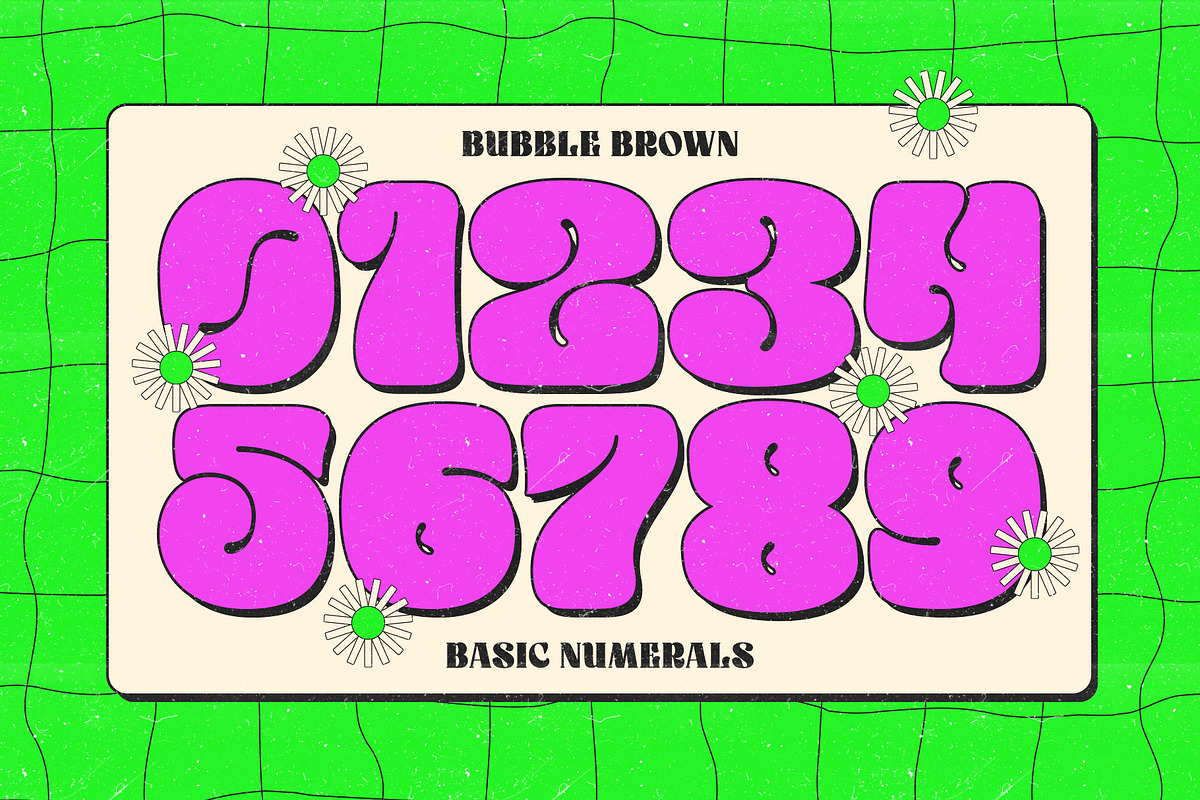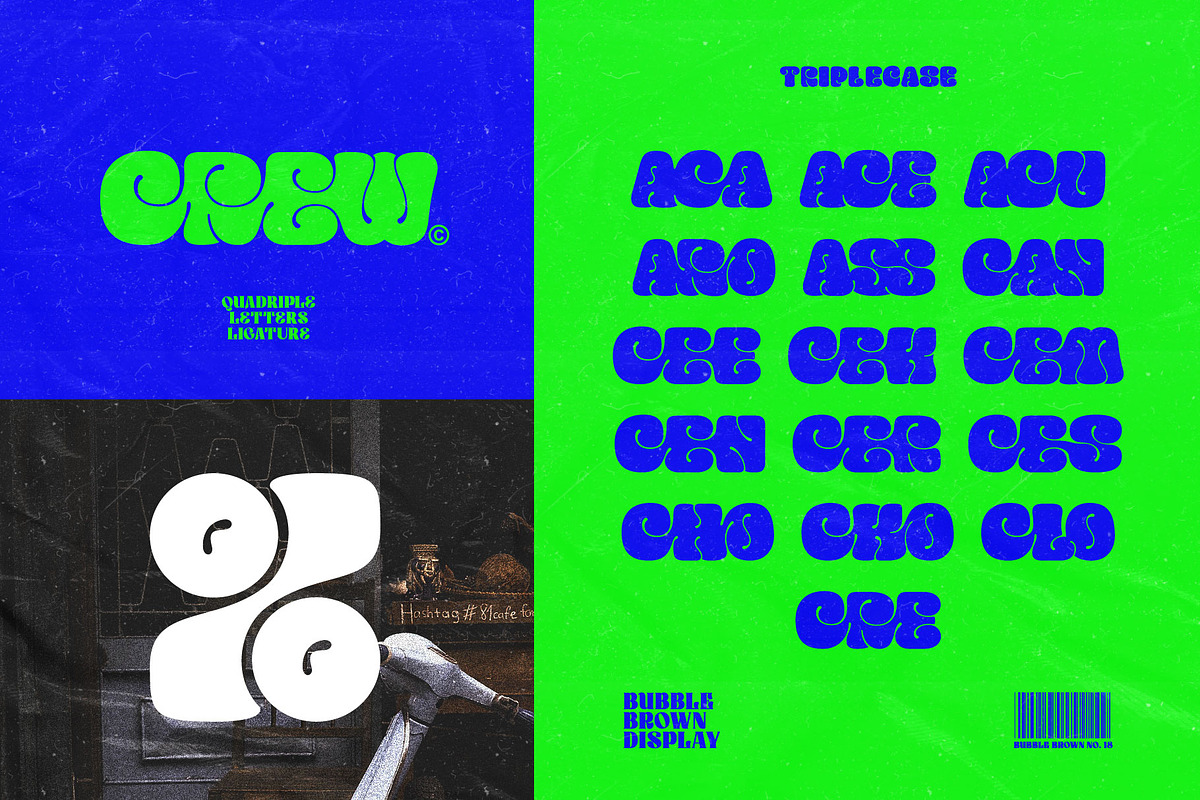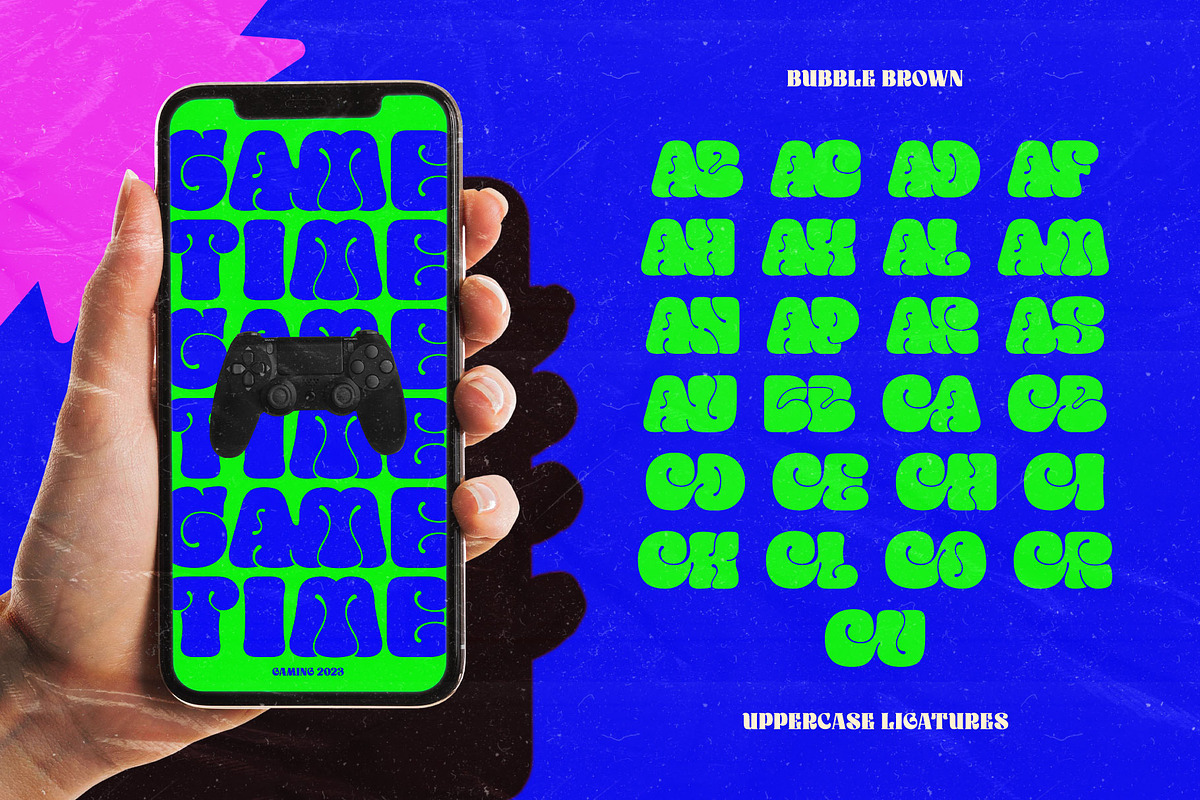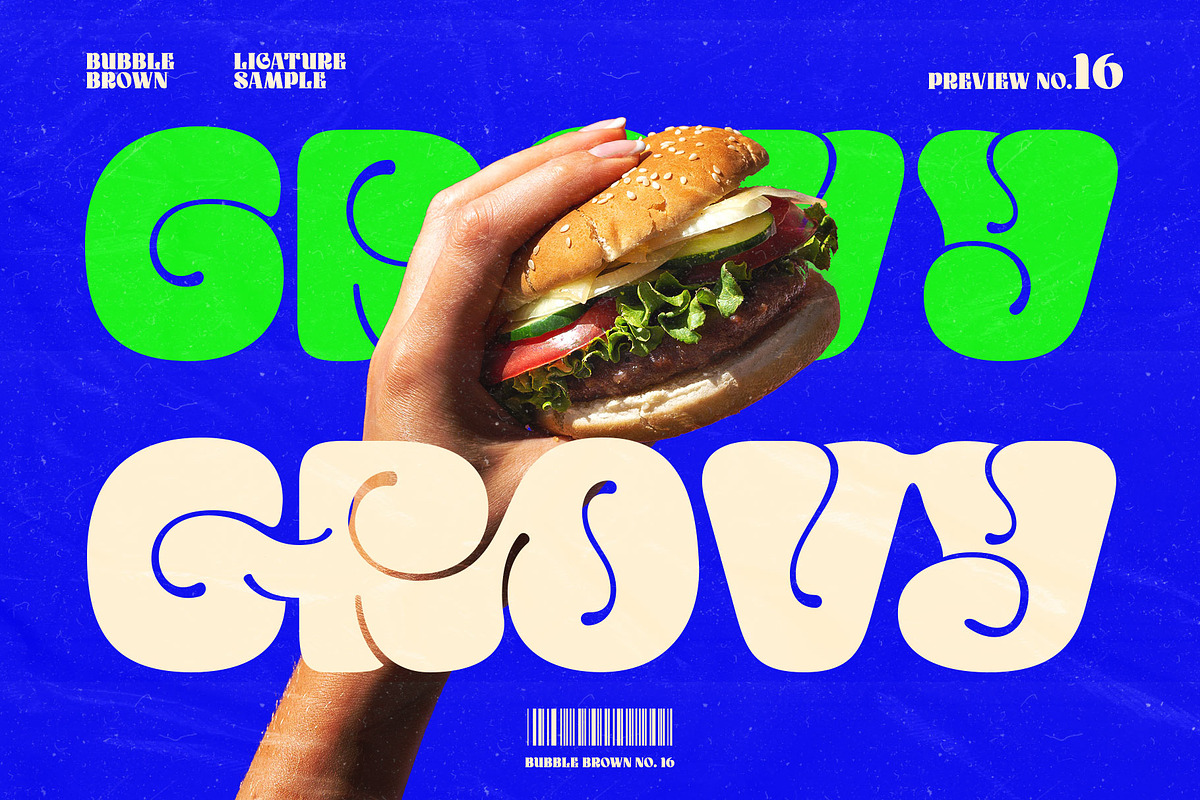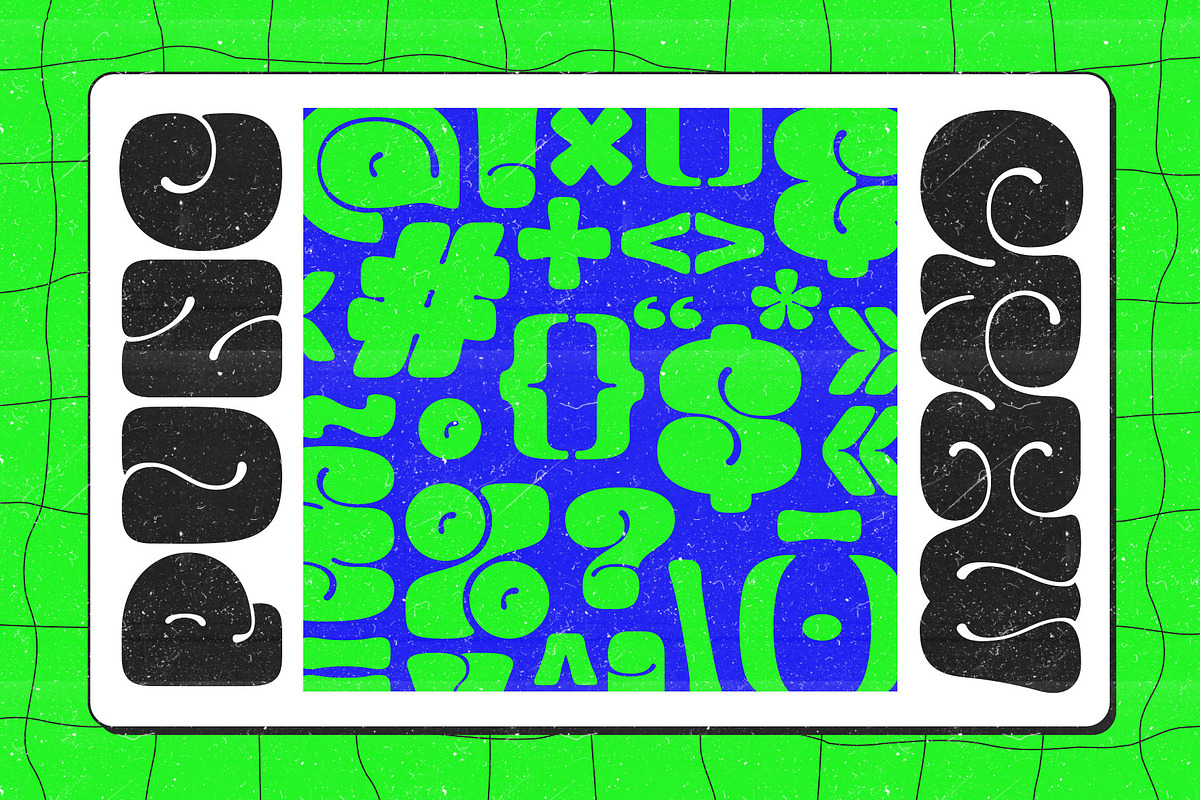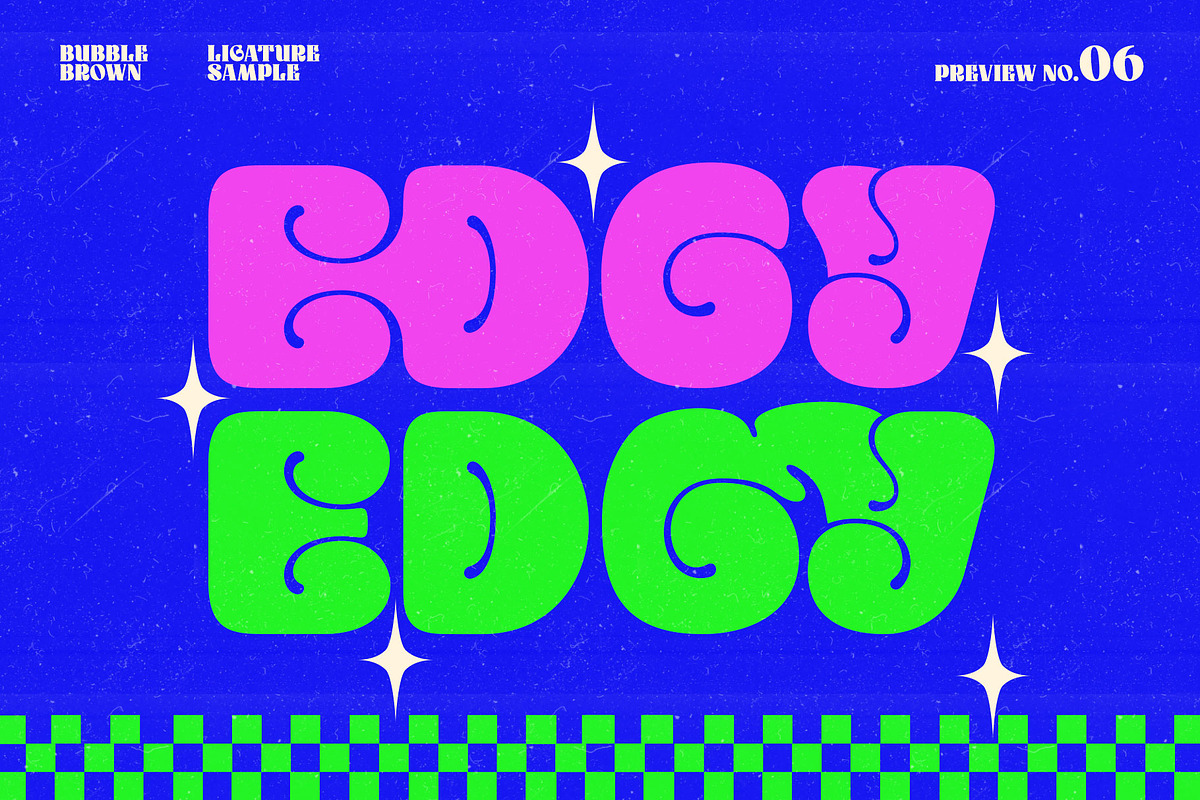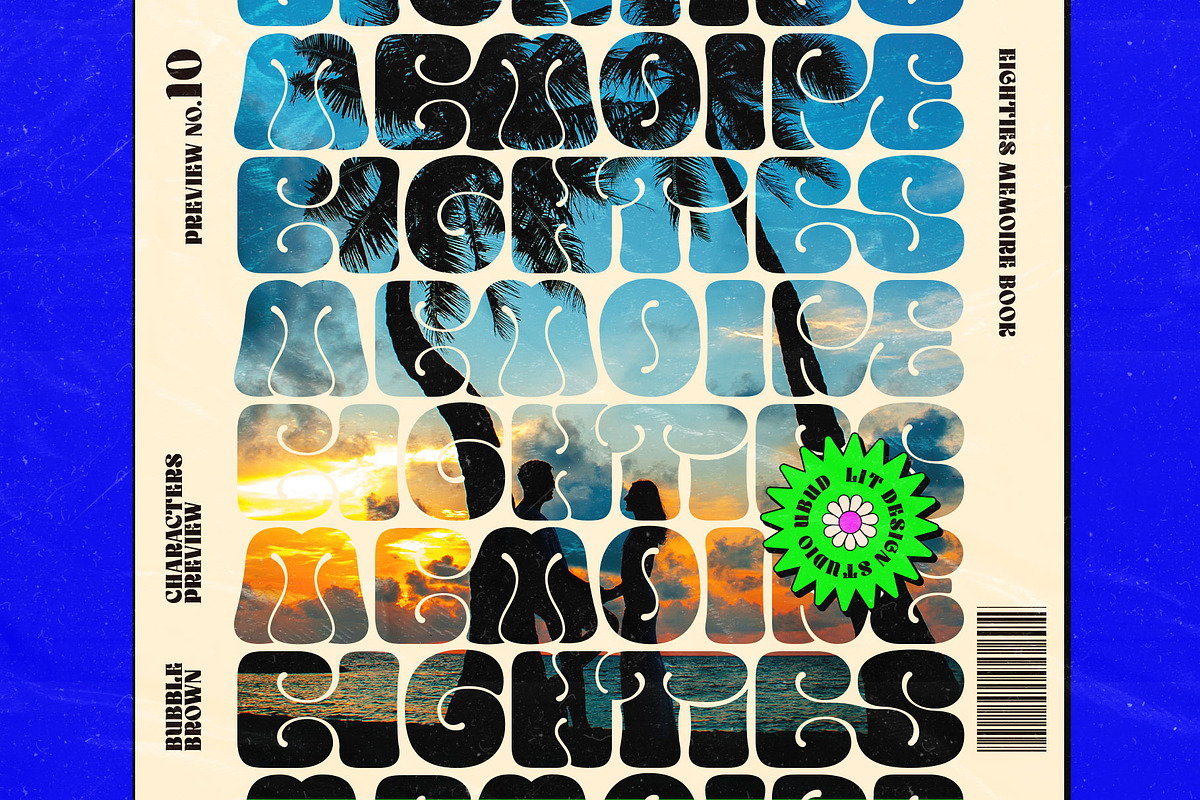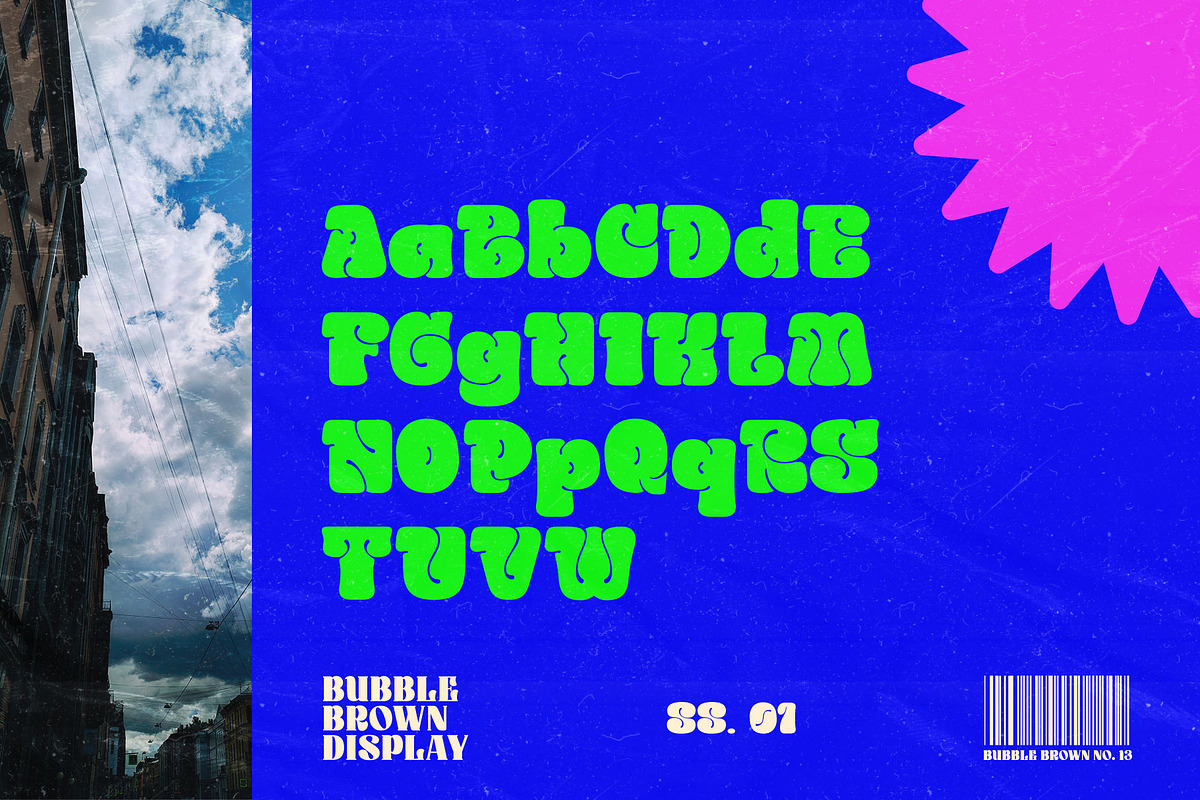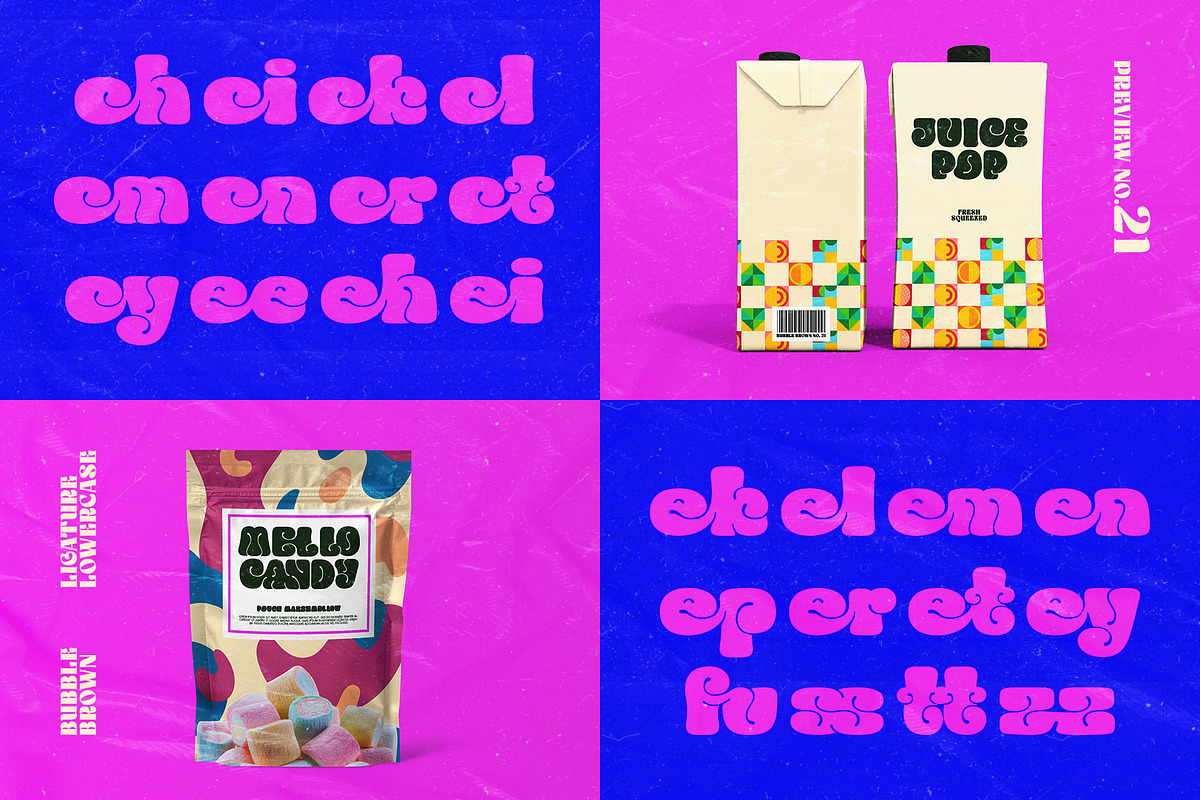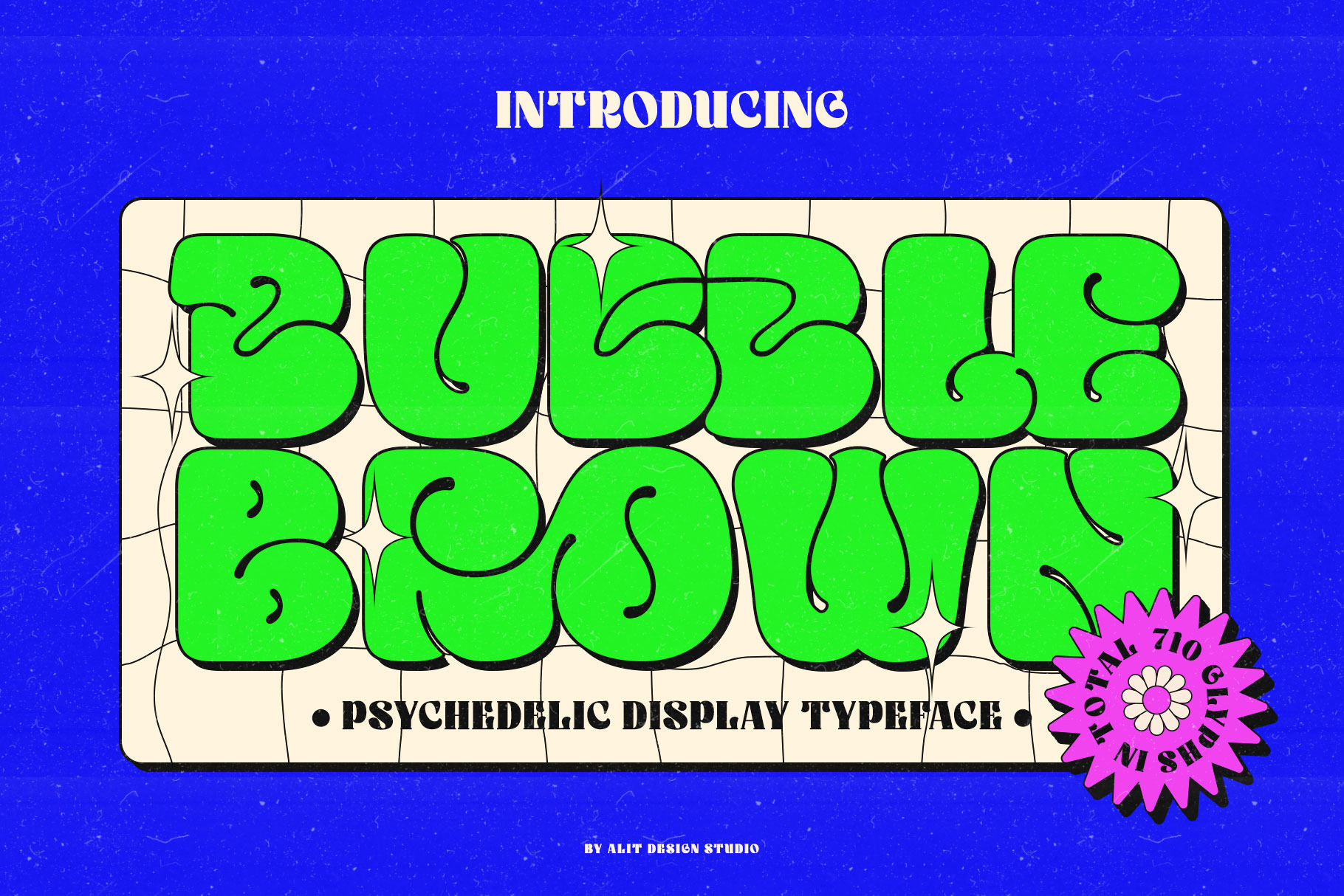
Bubble Brown Typeface
Introducing Bubble Brown, an exciting and playful bubble display font that will add a touch of whimsy to your designs. This font features a unique alternate ligature style that combines bubbles and letters, creating a fun and engaging visual experience. With its lively appearance, Bubble Brown is perfect for various design projects, especially those aimed at children, toys, games, or anything that requires a cheerful and vibrant aesthetic.
This font is carefully crafted with 710 characters, ensuring versatility and multilingual support. Whether you're designing in English, French, Spanish, German, or any other language, Bubble Brown has got you covered. The font includes special characters, punctuation marks, numerals, and a wide range of glyphs, allowing you to express your creativity without limitations.
One of the standout features of Bubble Brown is its support for PUA Unicode. This means that you can access the font's extensive character set through private use area codes, giving you even more freedom to customize and personalize your designs. Let your imagination run wild as you combine different characters and ligatures to create captivating typographic compositions.
Bubble Brown will bring joy and excitement to any project it graces. Whether you're designing posters, logos, packaging, websites, or any other creative endeavor, this bubble display font is bound to make a lasting impression. Its alternate ligature style adds a touch of uniqueness and flair, setting your designs apart from the crowd.
Language Support : Latin, Basic, Western European, Central European, South European,Vietnamese.